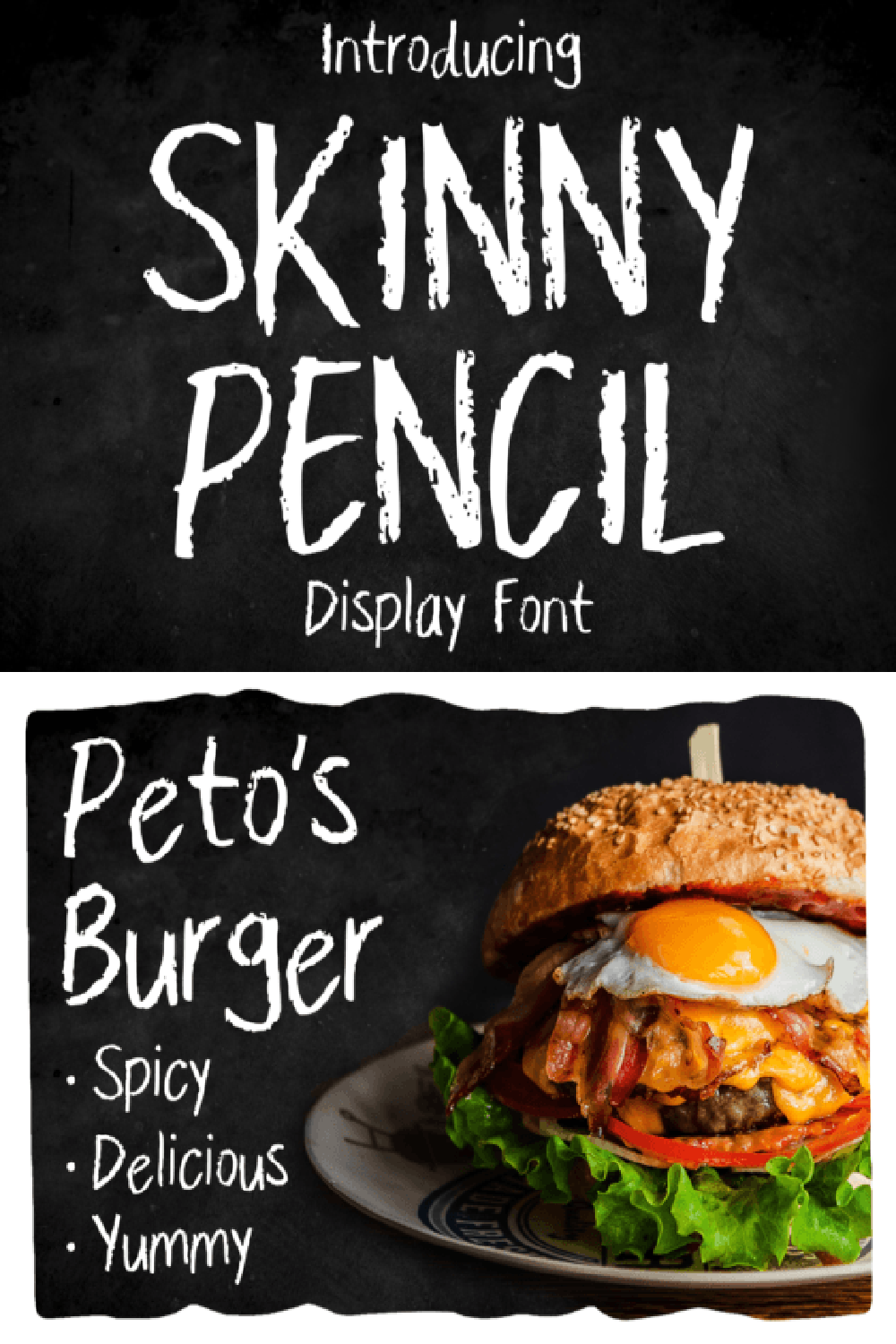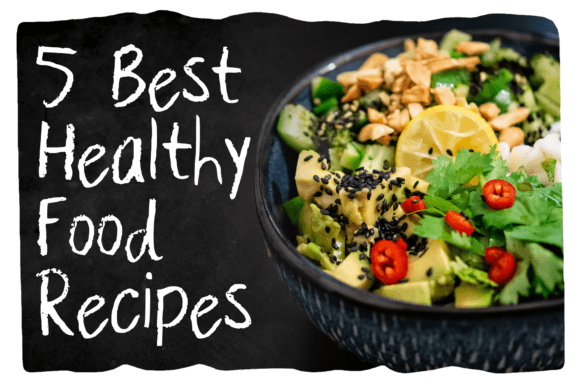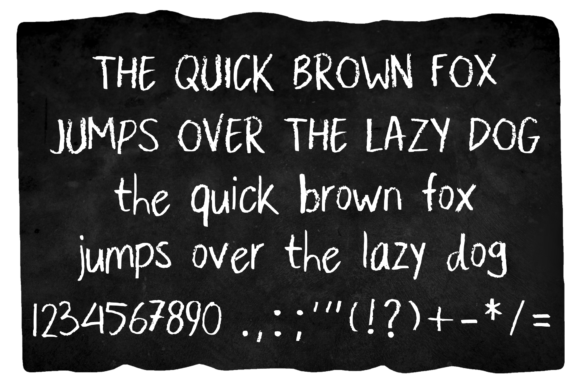
Skinny Pencil Font: A Casual Handwritten Font for Cricut & DIY Projects
About the Skinny Pencil Font
Presenting Skinny Pencil Font, a unique and stylish typeface that will make your work stand out. Skinny Pencil is a skinny handwritten font with pencil or chalk texture that you can use it for anything ranging from t-shirts, book designs, packaging, and greeting cards to stickers and posters, or anything that needs a casual touch, it will be your perfect font to pick. Fall in love with its incredibly versatile style, and use it to create lovely designs!
Skinny Pencil Font Usage Examples